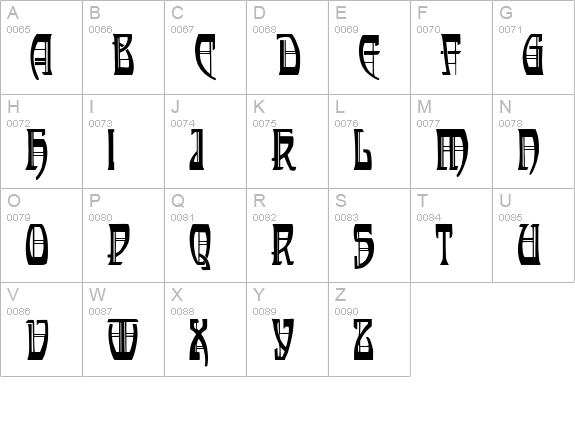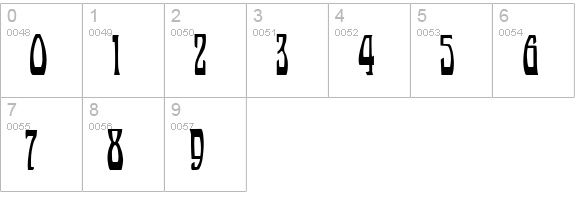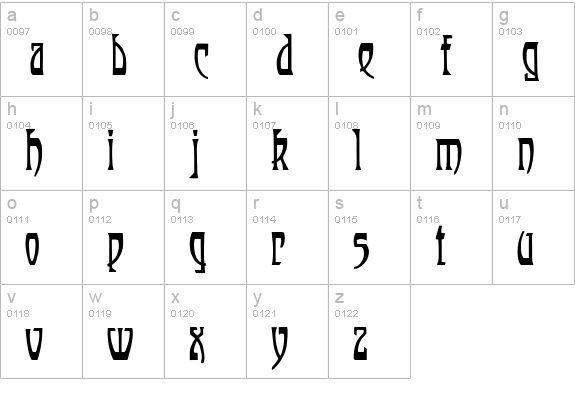
Antwerp Text Font Details
Antwerp Text font is a timeless and elegant typeface that exudes sophistication and readability. Its clean lines and classic design make it a versatile choice for a wide range of projects, from branding to editorial design. The font strikes the perfect balance between modernity and tradition, making it suitable for both digital and print applications. What sets Antwerp Text font apart is not only its aesthetic appeal but also its accessibility. This high-quality typeface is available for free download at FontsMarket.com, allowing designers and creatives to access this premium font without any cost. With its comprehensive character set and various weights, Antwerp Text font offers endless possibilities for creating captivating and professional-looking designs. Whether you're working on a website, a magazine layout, or a branding project, Antwerp Text font is sure to elevate your work with its timeless charm and versatility. Download this exceptional font for free today and take your design projects to the next level!